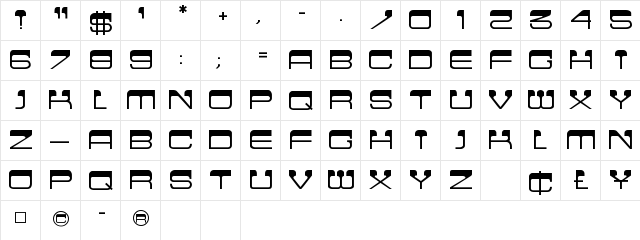
Cinema Regular
Design Context for Cinema Typeface
Cinema takes a measured approach to typography — its balanced proportions and neutral character make it a reliable workhorse for both digital and print work.